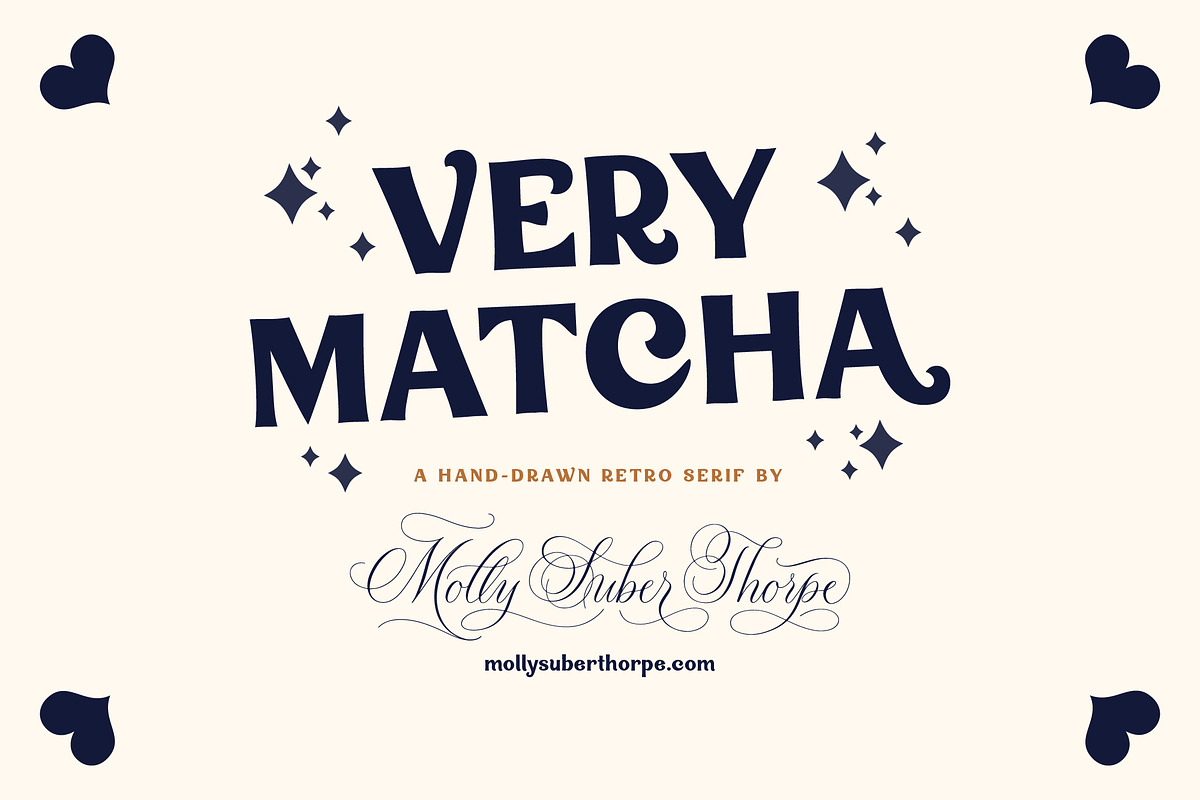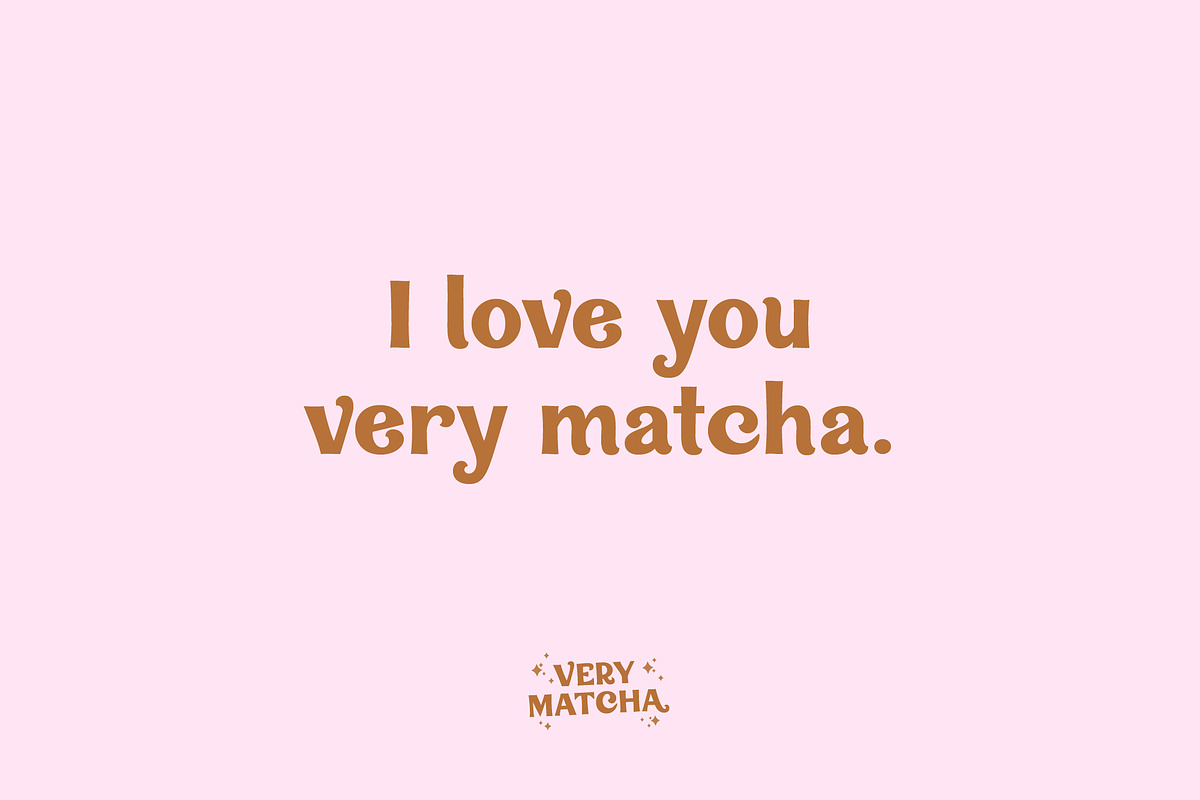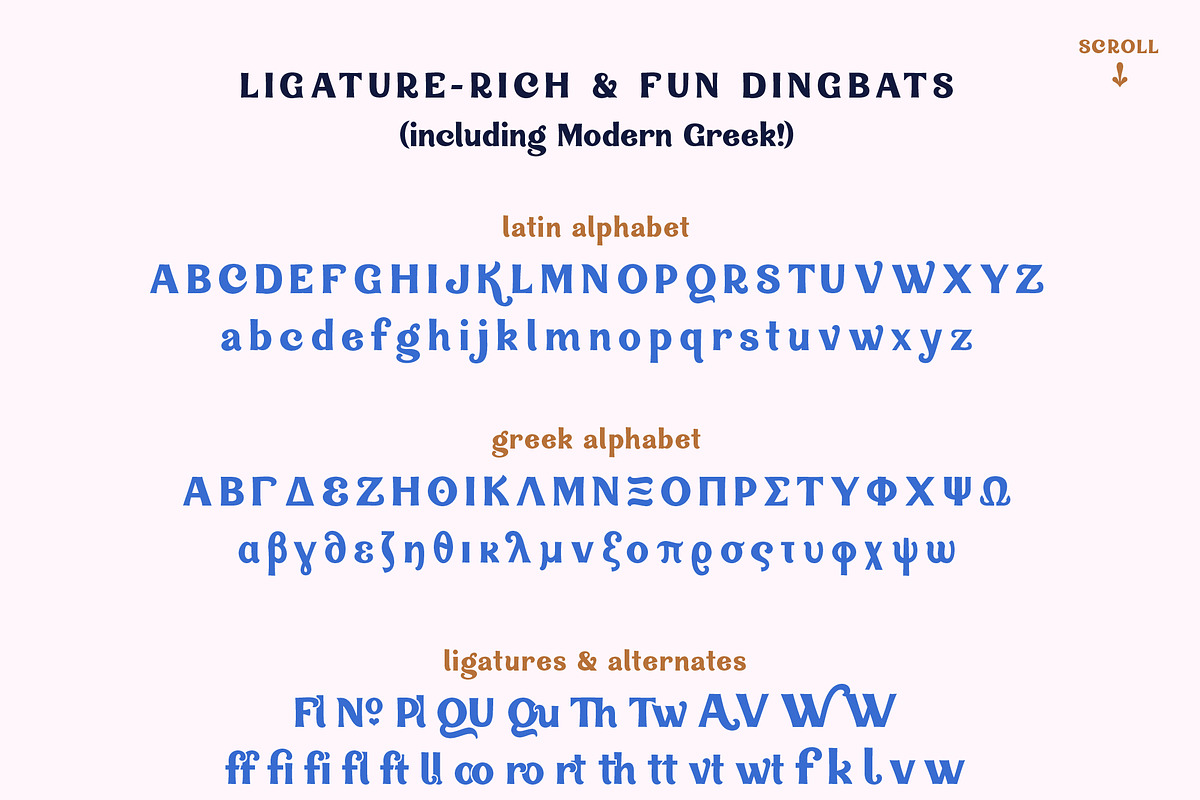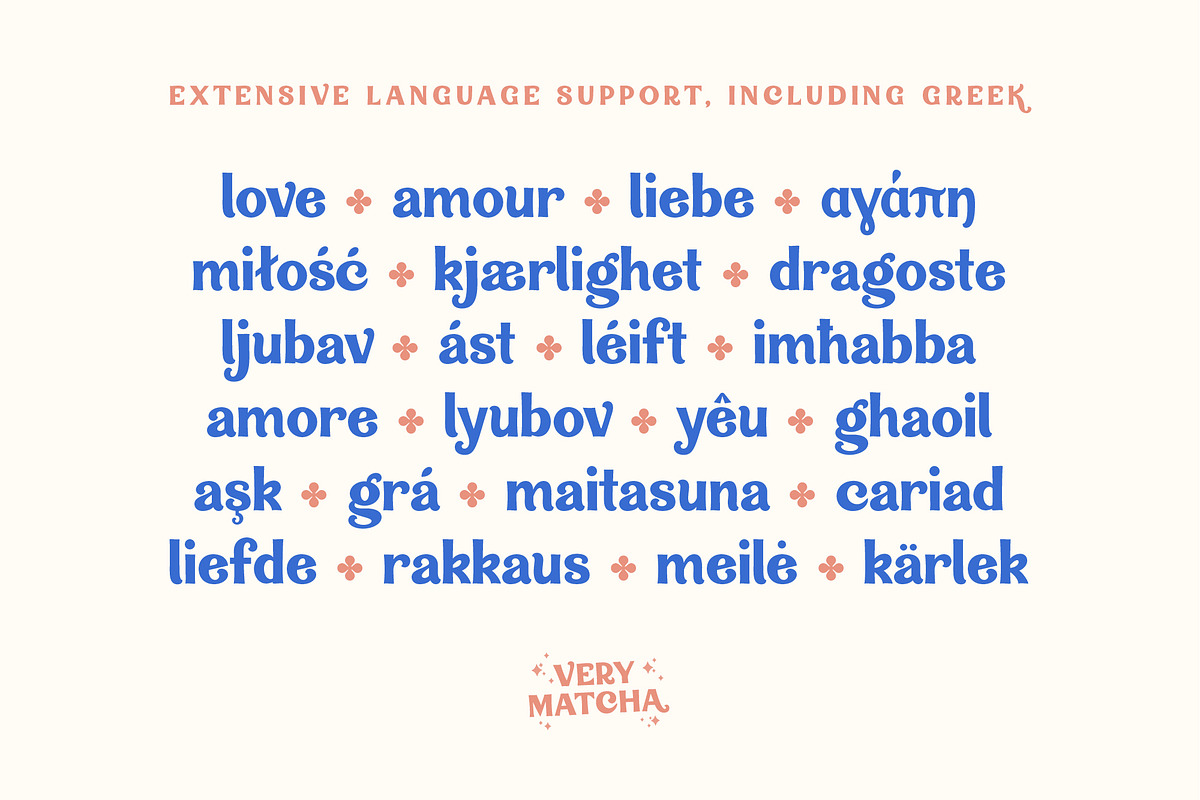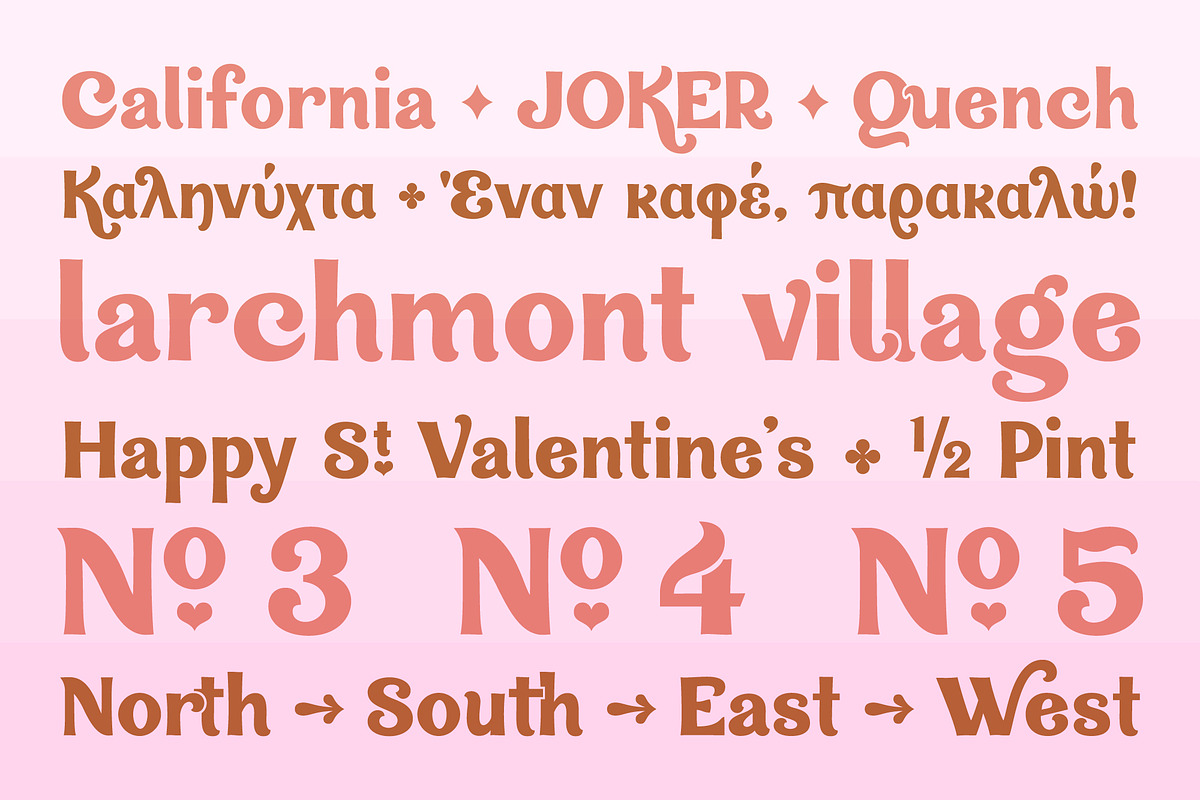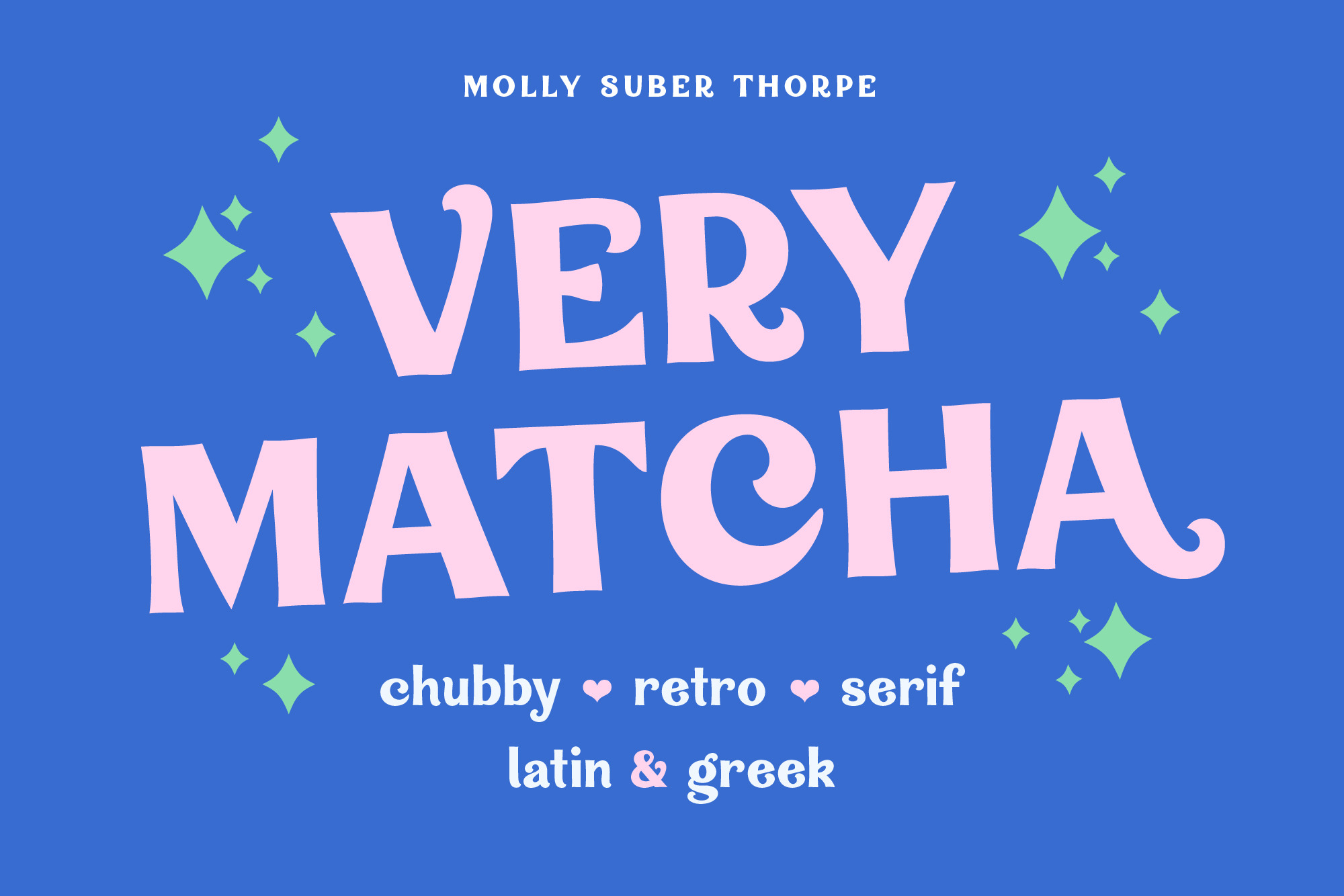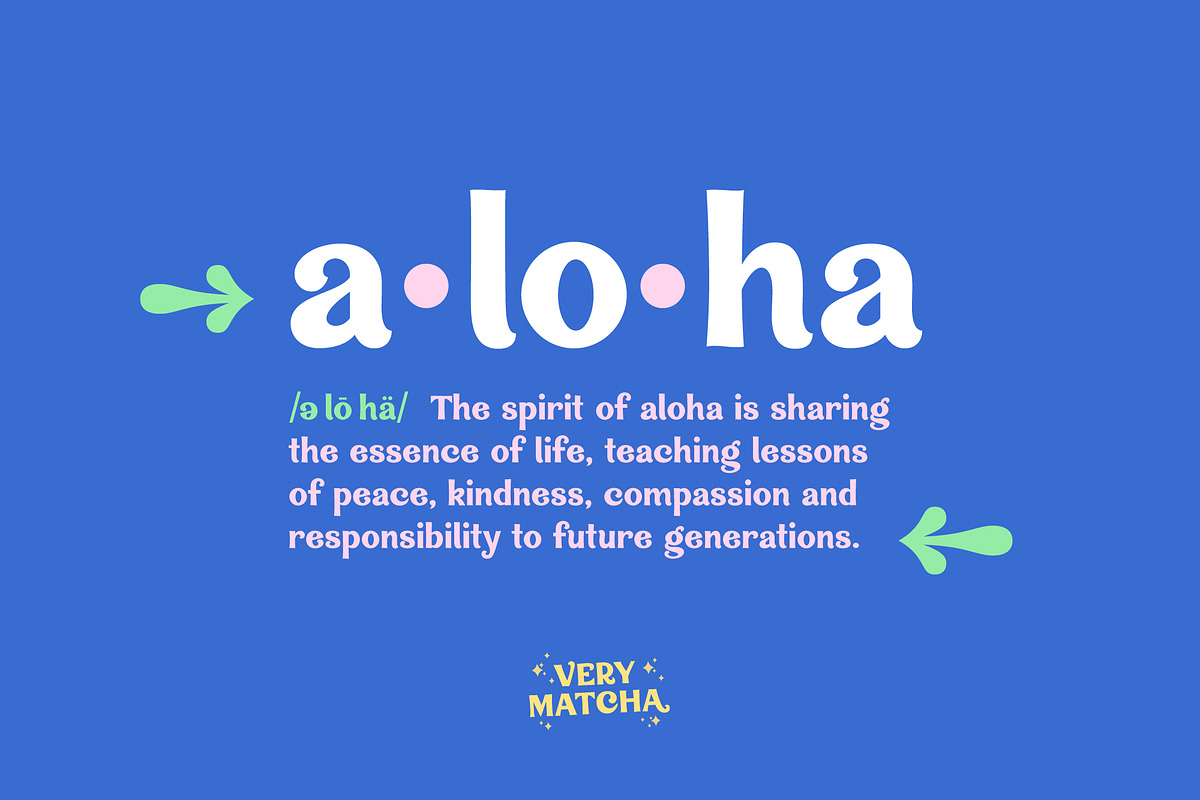
Very Matcha Retro Serif Font
Very Matcha is a hand-drawn, chunky serif font with fun retro flair. Think 70s disco meets Hawaiian luau. Whether for branding, advertising, or merch, all who see it like it very matcha! š
It has uppercase and lowercase alphabets, dozens of beautiful ligatures and dingbats, and includes support for Modern Greek.
Very Matcha has over 500 glyphs in Latin and Greek consisting of:
- the complete Latin alphabet (with all accent marks),
- the complete Modern Greek alphabet,
- 30 ligatures and stylistic alternates,
- 24 fun dingbats and arrows,
- numerals and math symbols,
- extensive punctuation and diacritical markings.
The OpenType ligatures are the fun part.
Very Matcha supports dozens of languages which use the Latin and Greek alphabets. The most common languages it supports are: English, Catalan, Croatian, Czech, Danish, Dutch, Finnish, Flemish, French, German, Modern Greek, Italian, Maltese, Norwegian, Polish, Portuguese, Spanish, and Swedish.